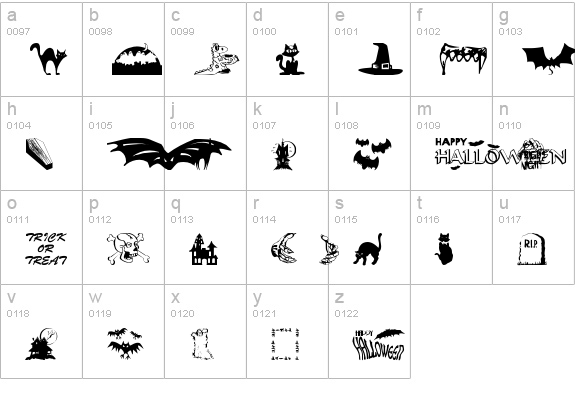
Howling Font Details
Howling font is a stunning display typeface that exudes a sense of mystery and boldness. With its unique, hand-drawn style and sharp edges, Howling font is perfect for making a statement in your designs. Whether you're working on posters, logos, or branding materials, this font is sure to grab attention and leave a lasting impression. Best of all, Howling font is completely free to download at FontsMarket.com. With just a few clicks, you can add this striking typeface to your collection and start using it in your projects right away. Don't miss out on the opportunity to elevate your designs with the captivating Howling font – download it today and let your creativity run wild!